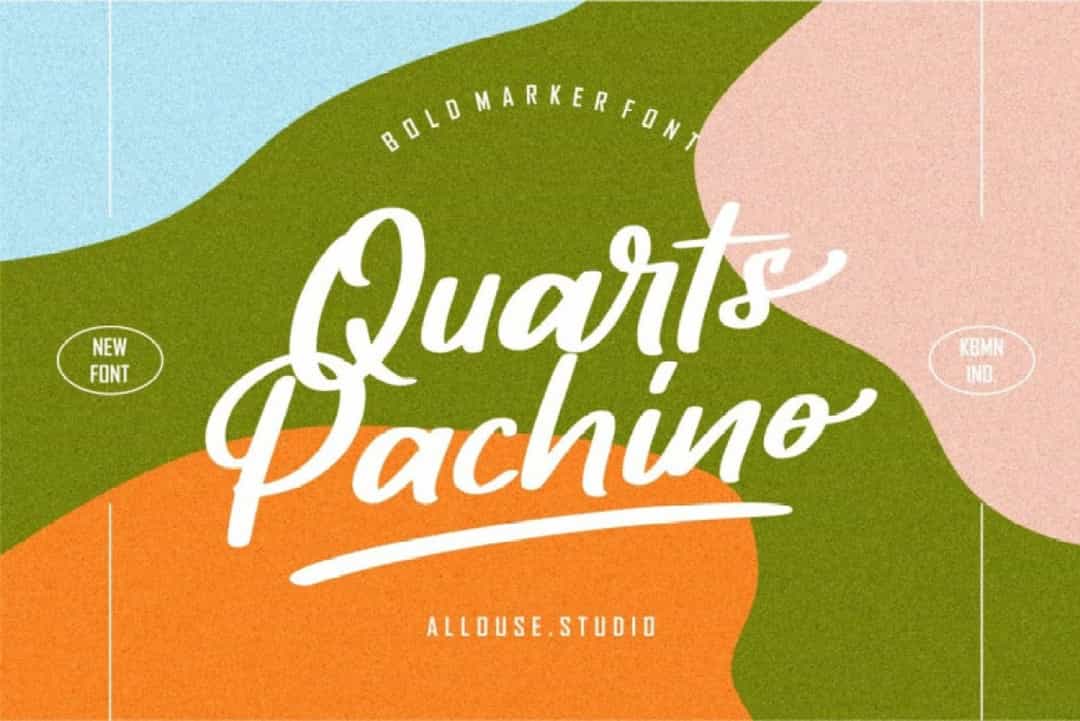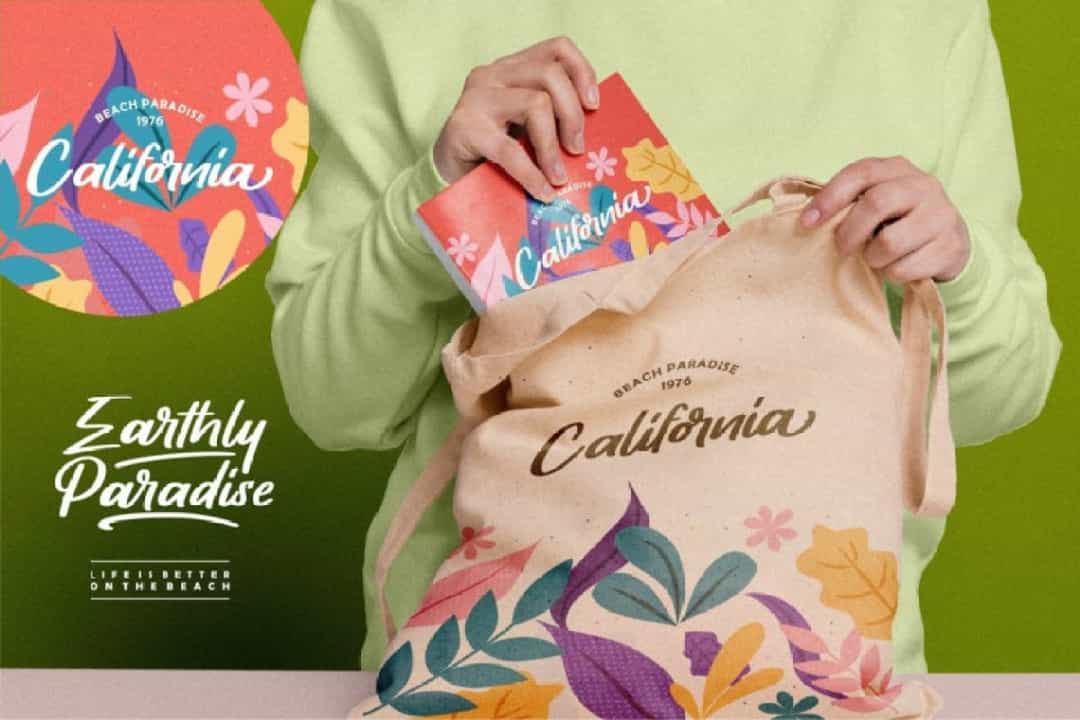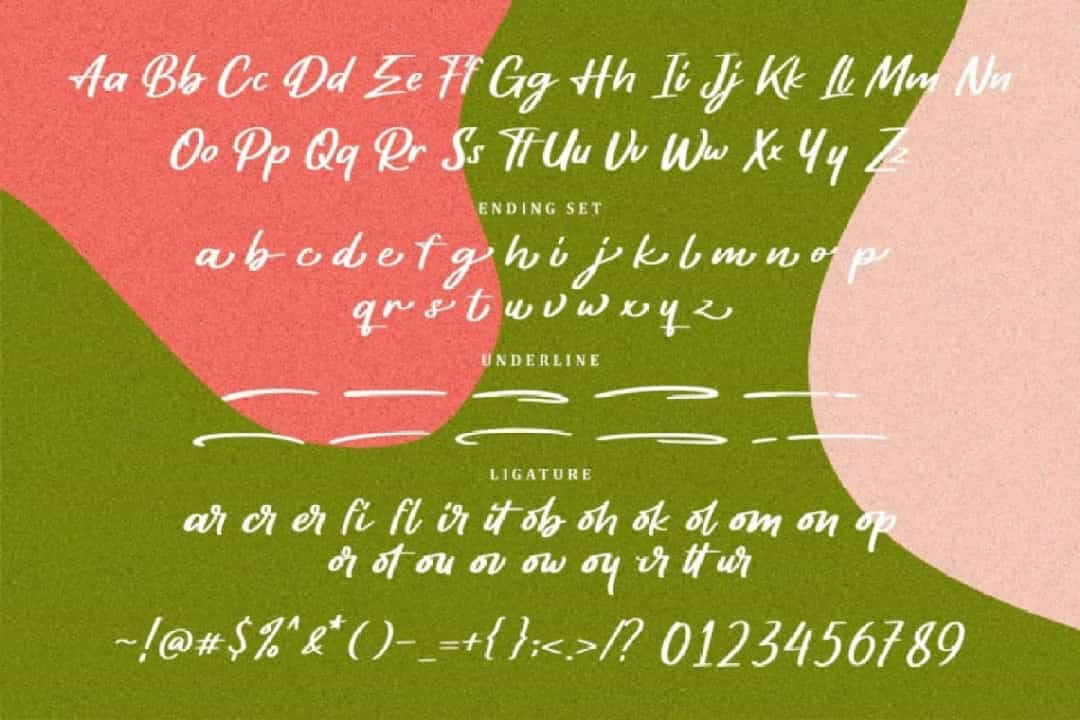
Quarts Pachino is a beautiful cursive script font, which is used in some of the images in the article. Silly and heartwarming all at the same time, this font’s warm letters will liven up any of your concepts. This font is lively and you can have so much fun with it since there are no limits to what you can achieve.